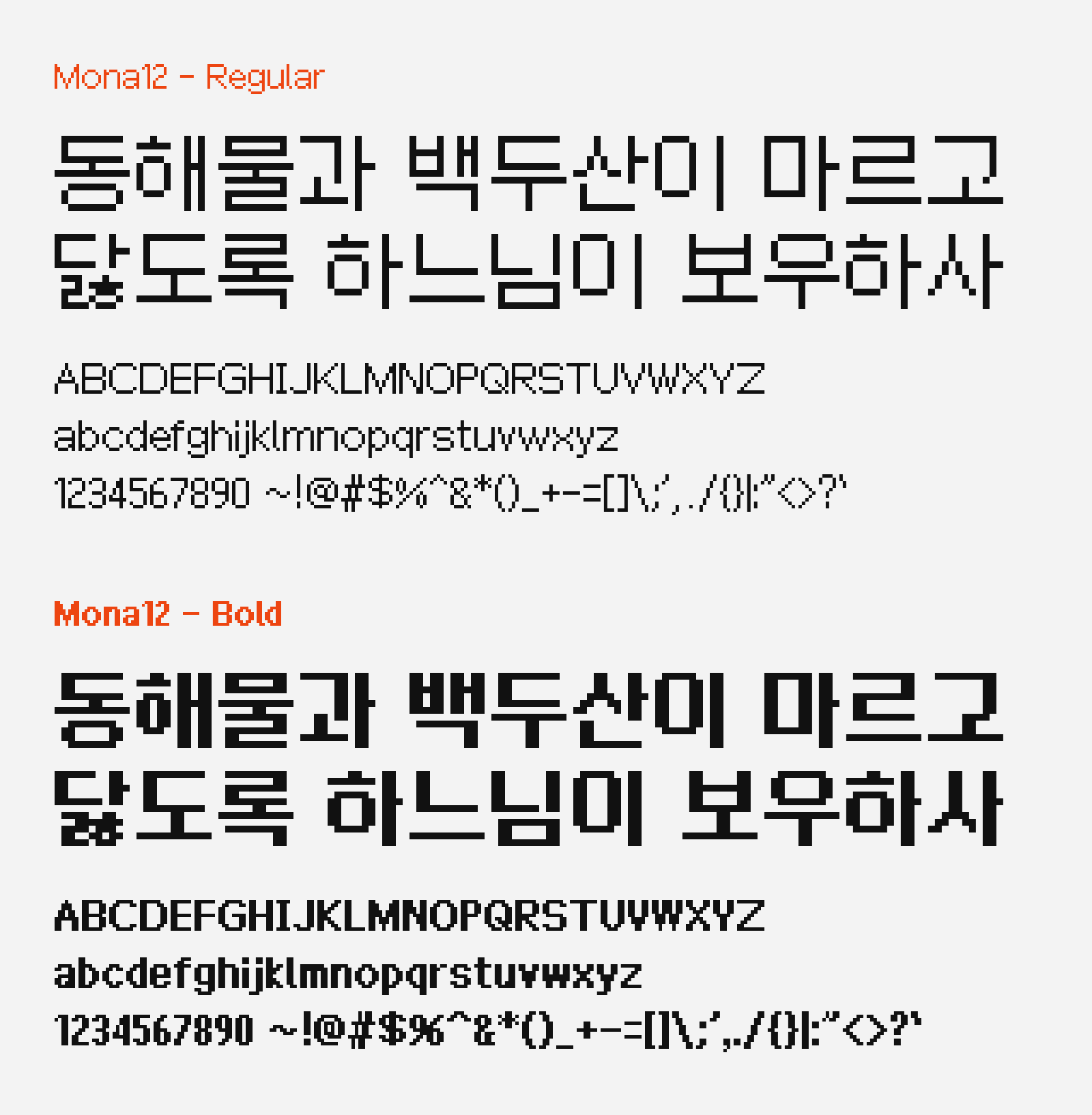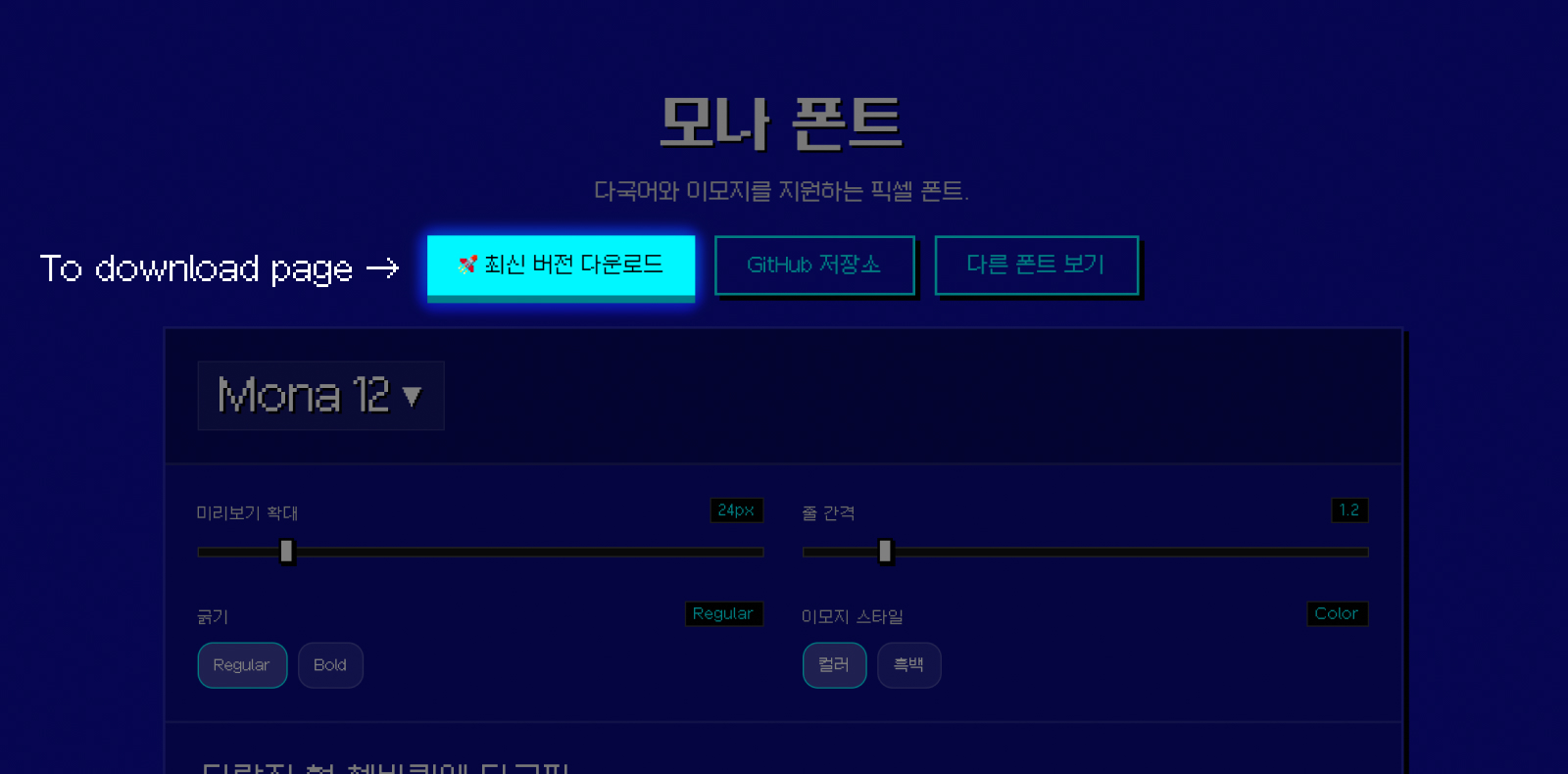
Mona12
Mona12 is a pixel-style font that supports multilingual text, special symbols, and emojis that you can download for free. As the name suggested, the font characters were designed with the 12-pixel square box, therefore if on smaller font size or display with a low pixel density screen, it’s best to scale this font on 12px multiples (eg. 12px, 24px or 9pt, 18pt and so on) to ensure the pixel crispiness. On larger font size for prints or on high density screen like your mobile devices, any font size will work. It comes with two weights in Regular and Bold, and it’s non-monospaced.
In terms of the pixel font design, it’s being kept generic and simple so that in my opinion, to keep them functional and for easy multilingual language support maintenance. Other than Korean language, Mona12 also supports Japanese, Simplified and Traditional Chinese, Latin, Greek and Cyrillic scripts. You can download this font for free and be used on commercial projects. Mona12 is released under the SIL Open Font License, v1.1.